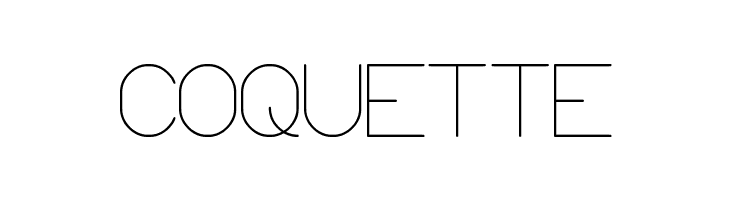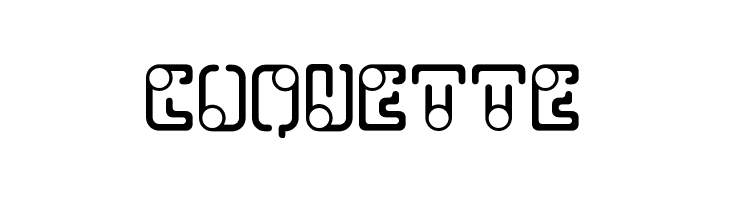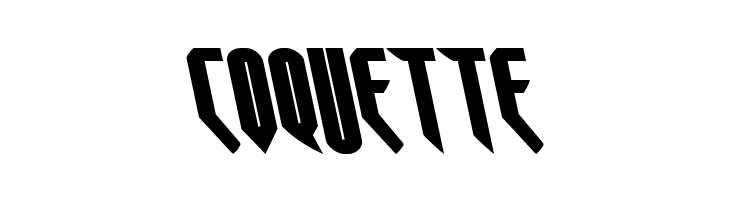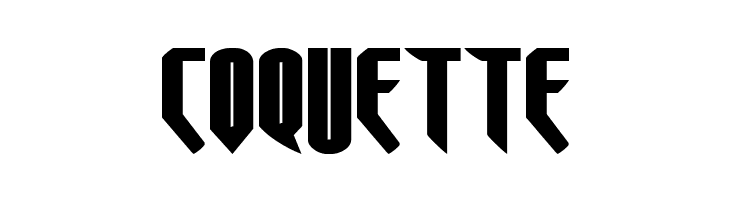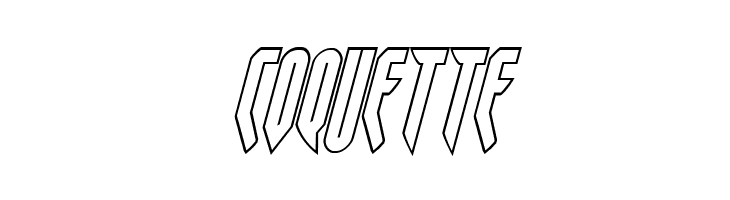
• OpenDyslexicMono
( Abelardo Gonzalez - abbiecod.es )
A monospaced font designed for readability, featuring distinct, weighted letterforms.
• Ophidian
A decorative, serpentine font with bold, flowing curves.
• Ophidian Bold
A bold, decorative font with interconnected loops and curves, ideal for creative display use.
• Ophidian Bold Italic
A bold, italic font with serpentine, decorative characters.
• Ophidian Italic
A decorative font with serpentine, flowing curves and bold strokes.
• Opirus OPIK Regular
• OPTICAL FIBER
A modern, geometric font with thin strokes and a minimalist design.
• OPTICAL FIBER
A sleek, modern font with geometric and minimalist design.
• OpticNerd
A playful, hand-drawn font with a quirky and lively design.
• Opulent Fiend Regular
( Fonts by Andrew McCluskey - nalgames.com )
A bold, geometric font with sharp angles and a modern, edgy aesthetic.
• Opus Magnus Condensed
A bold, angular, and condensed font with a striking geometric design.
• Opus Magnus Condensed Italic
A bold, angular, and condensed font with a dynamic slant and geometric style.
• Opus Magnus Expanded
A bold, geometric font with sharp angles and a futuristic aesthetic.
• Opus Magnus Expanded Italic
A bold, angular, and italic font with a futuristic and aggressive style.
• Opus Magnus Italic
A bold, angular, and italicized font with a futuristic and aggressive style.
• Opus Magnus Laser Italic
A bold, angular font with a futuristic and aggressive design.
• Opus Magnus Laser Regular
• Opus Magnus Leftalic
A bold, angular, and slanted font with a futuristic and dynamic style.
• Opus Magnus Outline Condensed
A bold, geometric outline font with a condensed and modern style.
• Opus Magnus Outline Condensed Italic
A bold, angular, and condensed outline font with an italic slant.
• Opus Magnus Outline Italic